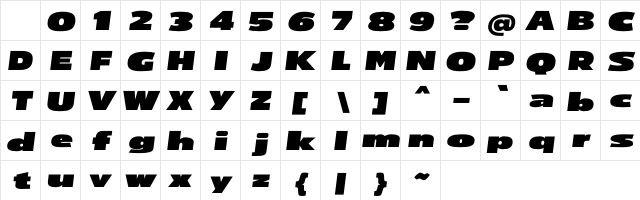
Complete Drifter Regular glyph index. Displaying only characters natively supported by Drifter Regular font.
Drifter is a composed and adaptable typeface that performs quietly and consistently across a wide range of design contexts.